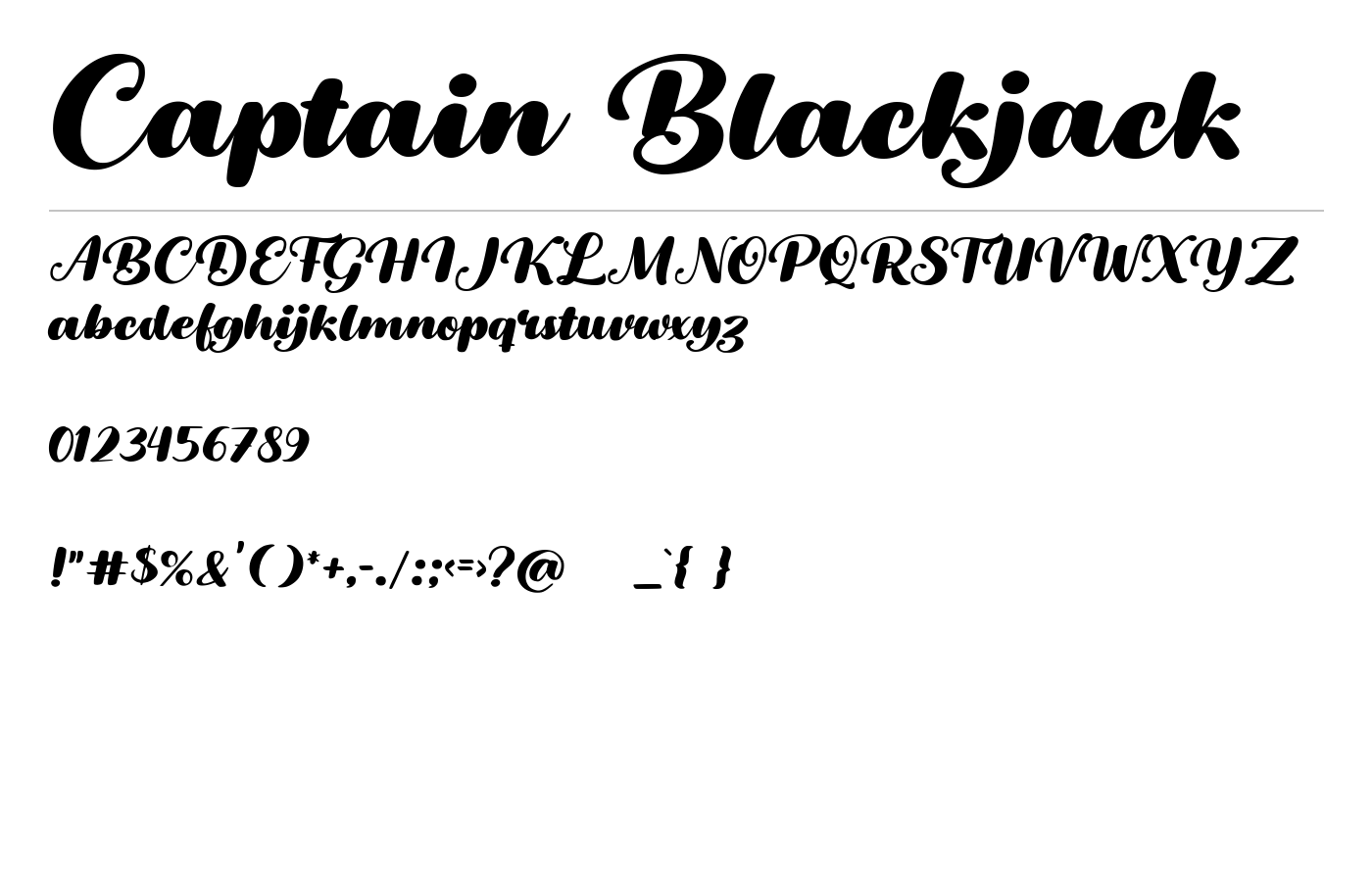
Captain Blackjack is a bold, script-style font with smooth, rounded strokes and a lively, handwritten feel. Its thick, flowing letters and playful curves make it perfect for eye-catching logos, packaging, and branding that wants to convey a friendly, vintage charm with a touch of elegance. This font works well in headlines and decorative uses where a warm, approachable personality is needed.
Captain Blackjack Font
About Captain Blackjack Font
| Font family | Captain Blackjack Font |
| Designer | Octotype |